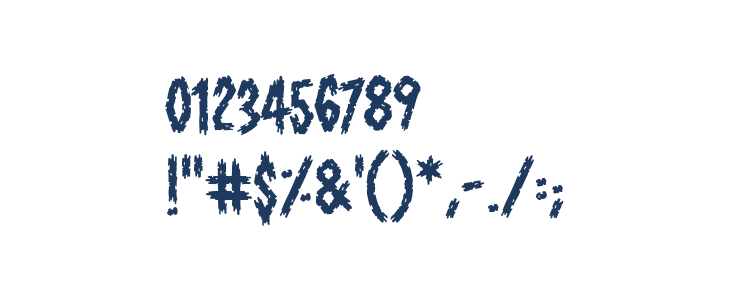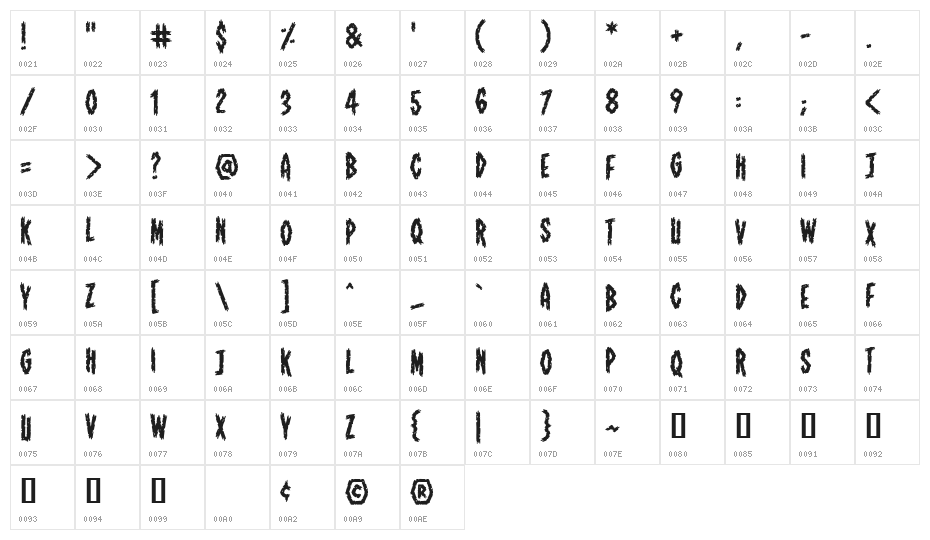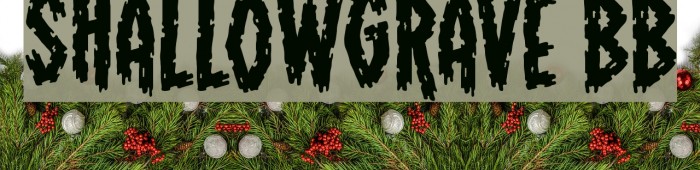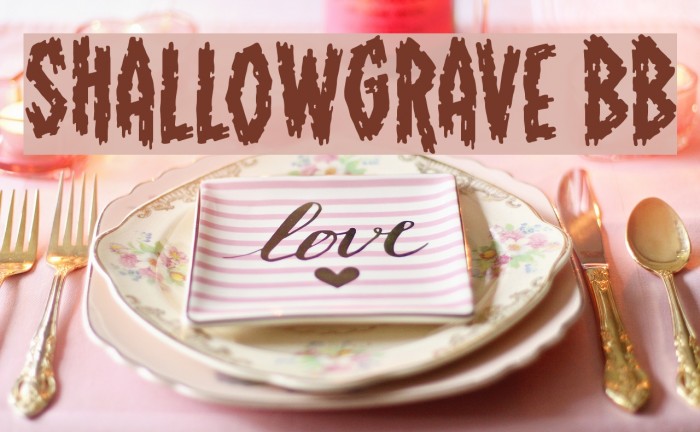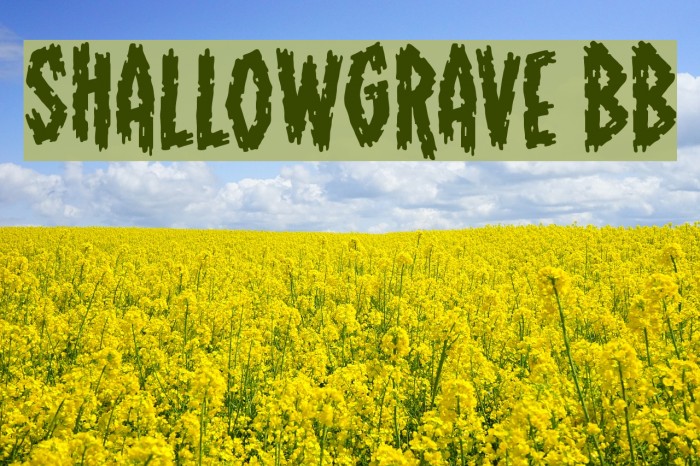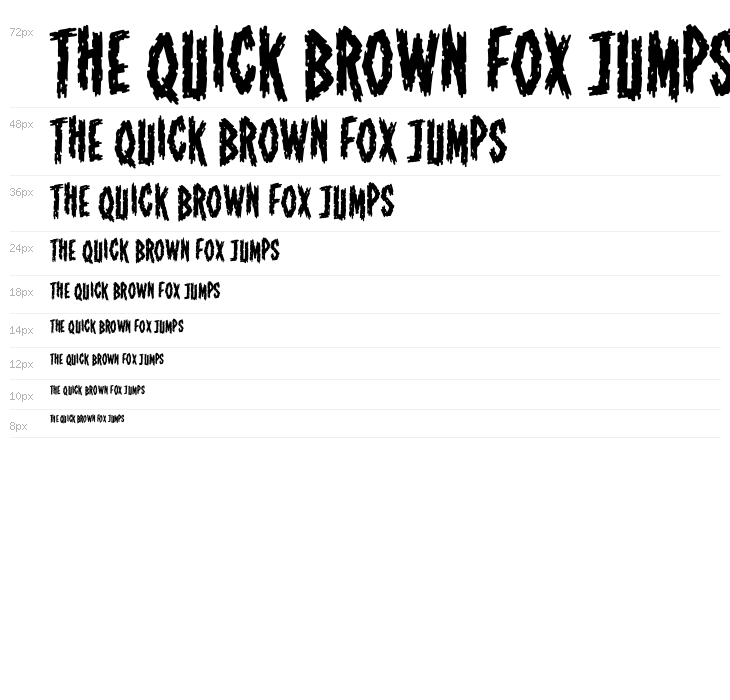
ShallowGrave BB Font
ShallowGrave BB Description
This font features a bold and jagged design, reminiscent of horror or thriller themes. The characters are irregular and rough, giving an impression of being hand-drawn with a brush or marker. The uppercase and lowercase letters maintain a consistent style, with exaggerated edges and a distressed look. Numbers and special characters follow the same aesthetic, making the font suitable for creating a cohesive and dramatic visual impact. The overall appearance is striking and attention-grabbing, ideal for projects that require a sense of urgency or intensity.
| Use Case | Headlines, Posters, Logos |
| Proposed Projects | Ideal for horror movie posters, Halloween event flyers, edgy album covers, or any design needing a dramatic and intense look. |